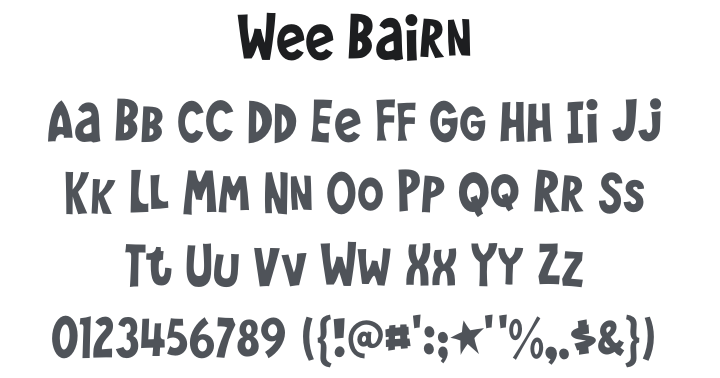
Wee Bairn Font
About Wee Bairn
Wee Bairn is a bold, chunky cartoon display typeface with thick, rounded letterforms that bounce with a lively, hand-drawn energy — each character slightly irregular and offbeat, as if drawn by an enthusiastic child with a fat marker. Its warm, animated character radiates pure joy. Perfect for children's books, party invitations, toy packaging, playful branding, and any design needing a friendly, irresistibly cheerful personality.